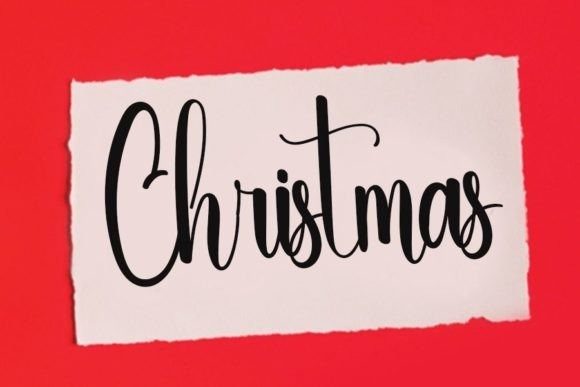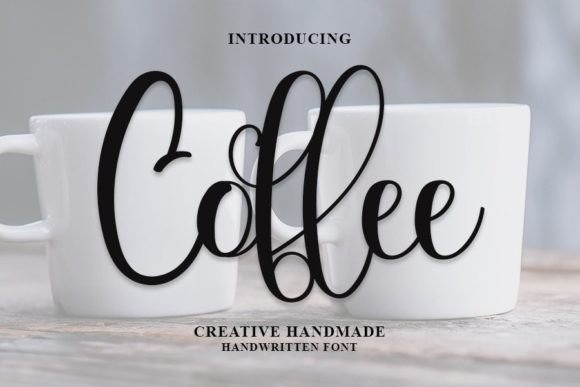
Coffee Font
Coffee Font is a stylish handwritten font with a contemporary atmosphere and impeccable form, inspired by a timeless classic calligraphy. Balanced and varied, this font was designed to enhance the beauty of your projects.